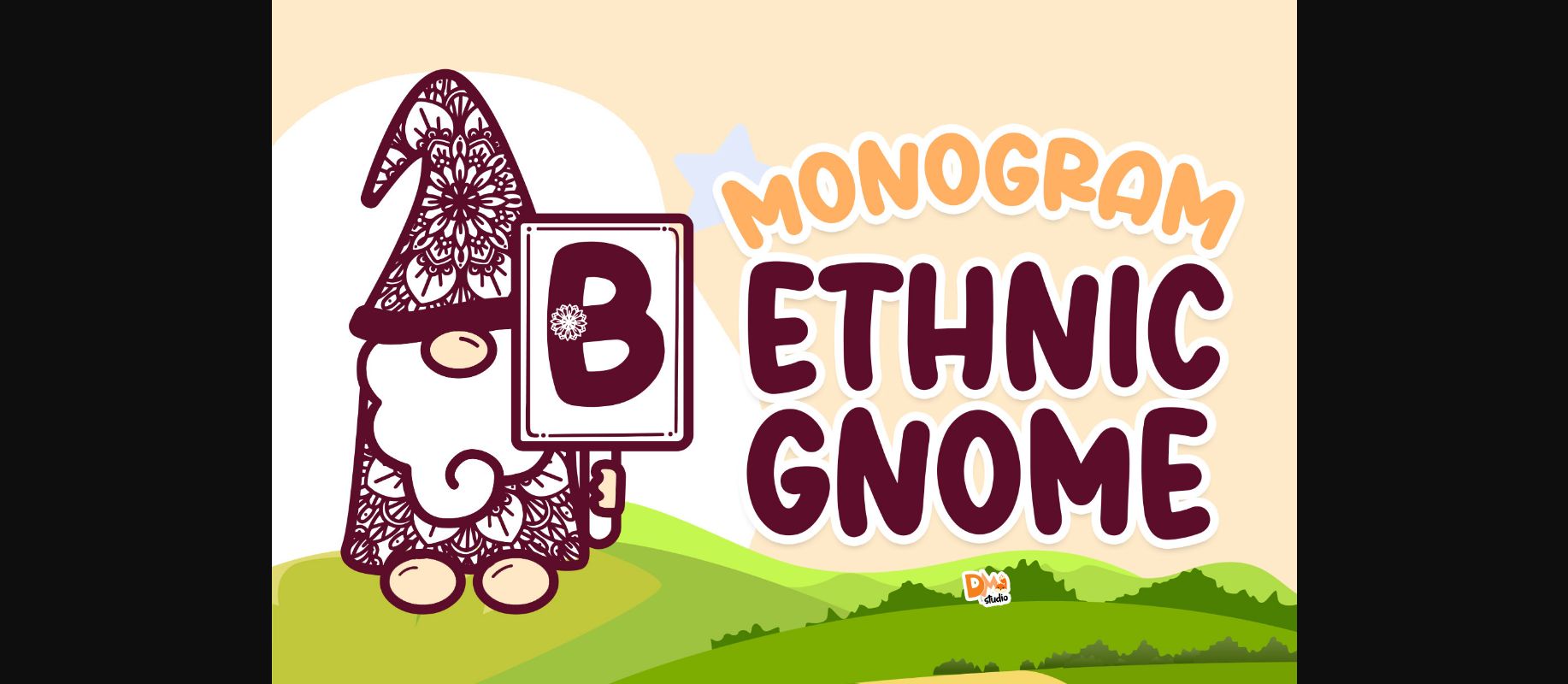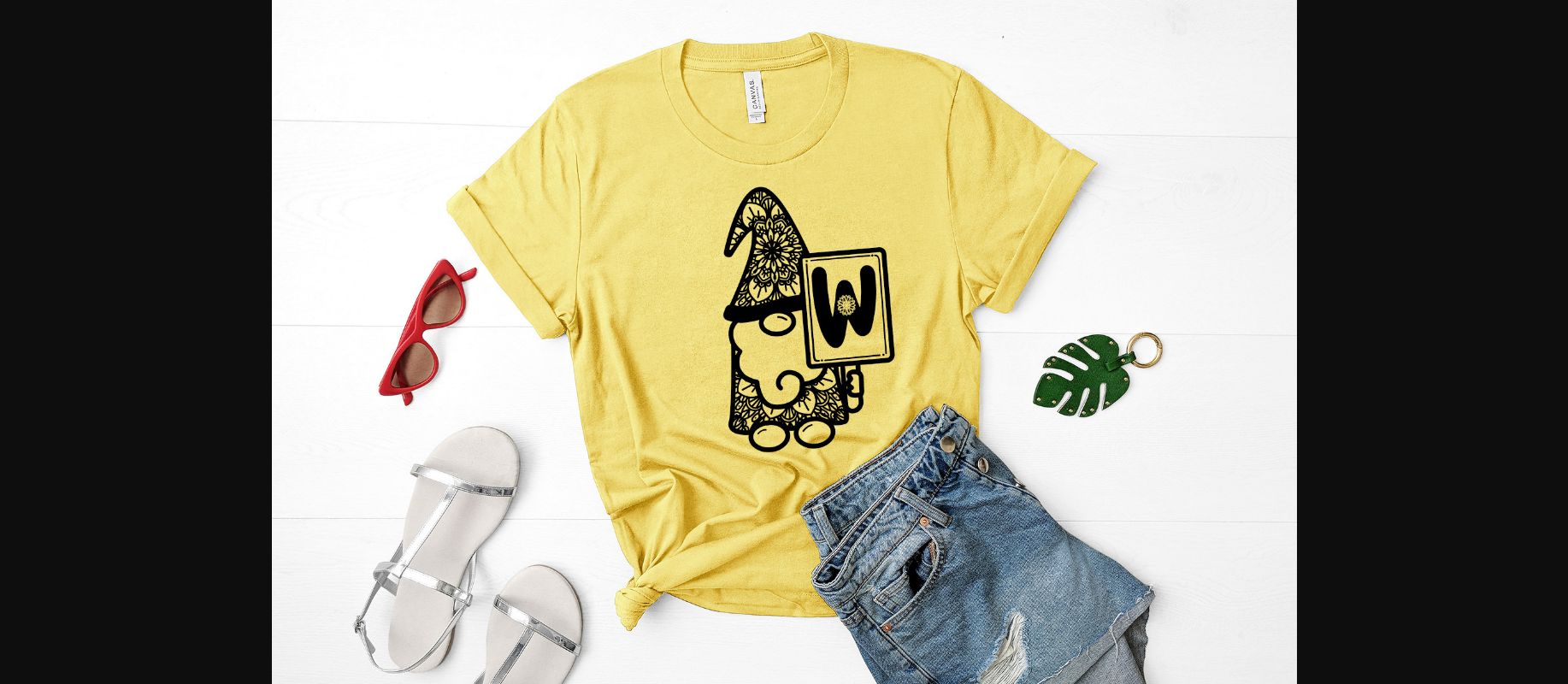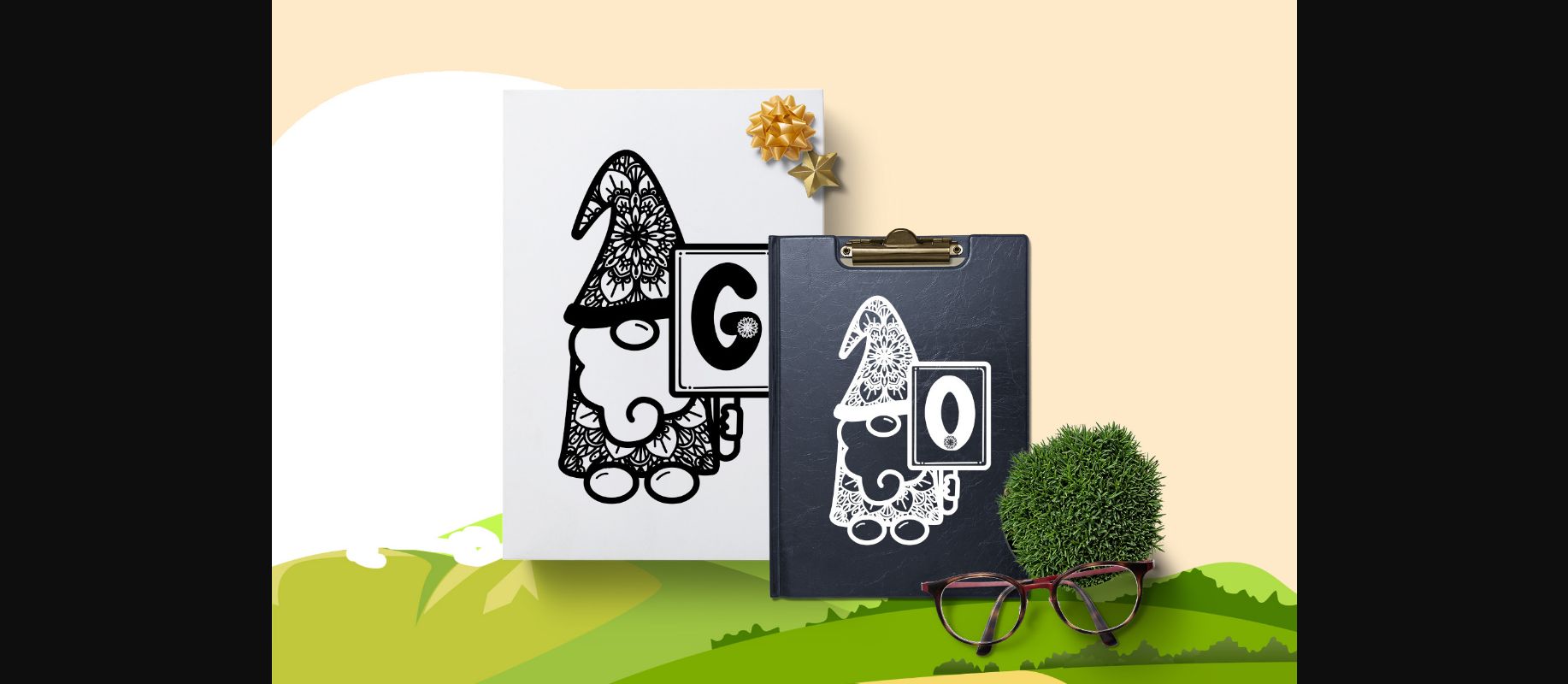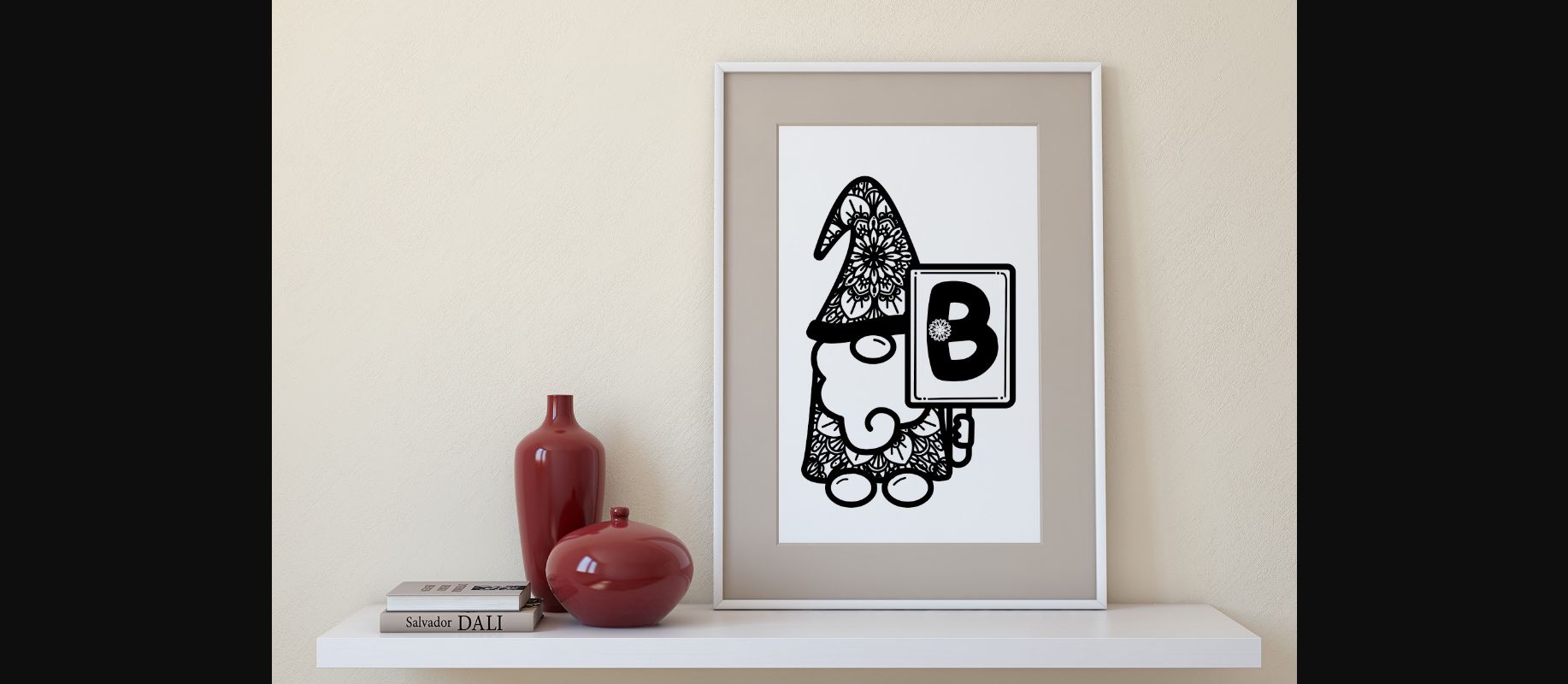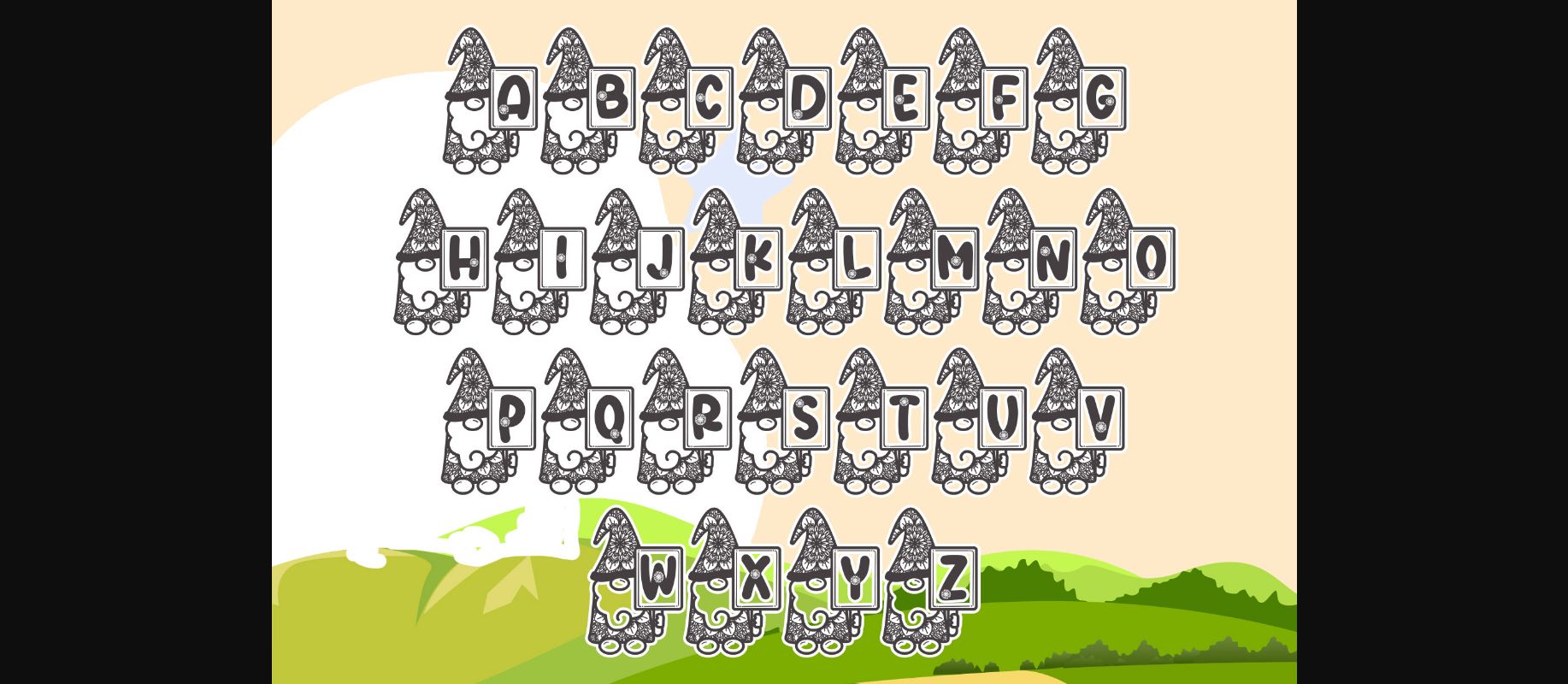
About Monogram Ethnic Gnome Font
Monogram Ethnic Gnome is an incredibly cute, original and quirky decorative font. Whether you use it for cartoon related designs, children games or just any creation that requires a lovely touch, this font will be an amazing choice.